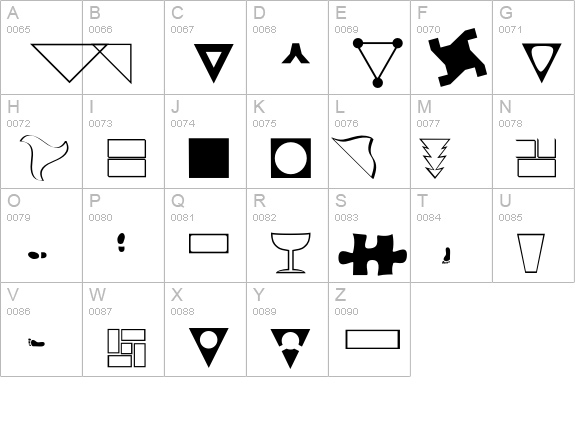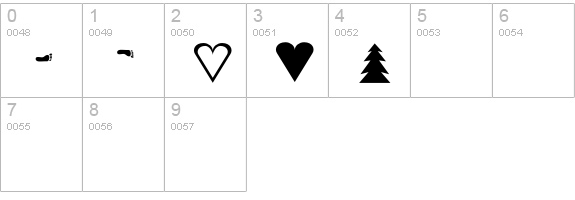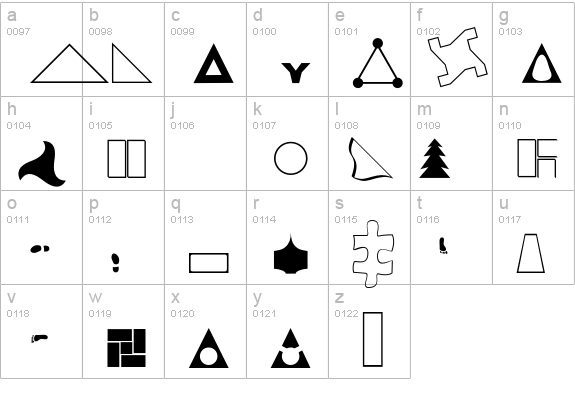
AlbumEins Font Details
AlbumEins font is a sophisticated and elegant typeface that exudes class and style. Its sleek lines and modern design make it perfect for a wide range of design projects, from branding to editorial layouts. The font's clean and timeless look will add a touch of sophistication to any project. What makes AlbumEins font even more appealing is that it is available for free download at FontsMarket.com. This means that you can easily access this high-quality font without any cost, making it a fantastic choice for designers looking to elevate their work without breaking the bank. Whether you're working on a personal project or a professional design, AlbumEins font is sure to impress with its versatility and charm.